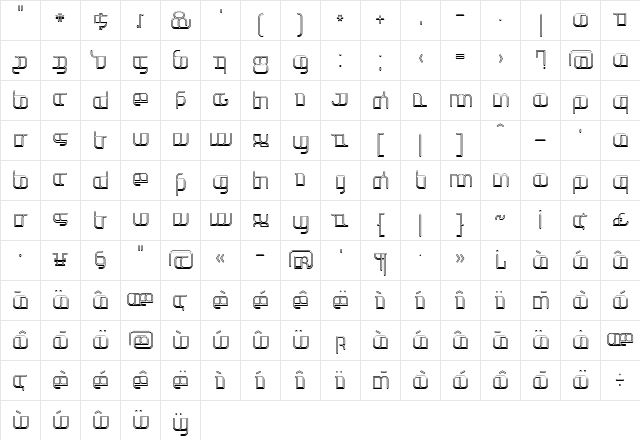
Jakone Regular
Design Context for Jakone Typeface
Jakone offers clean, dependable letterforms without strong stylistic allegiance, making it a practical choice for designers who need flexibility.